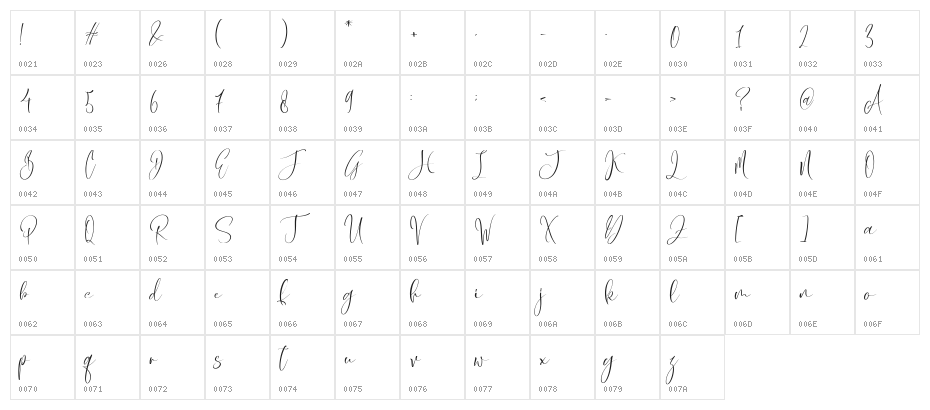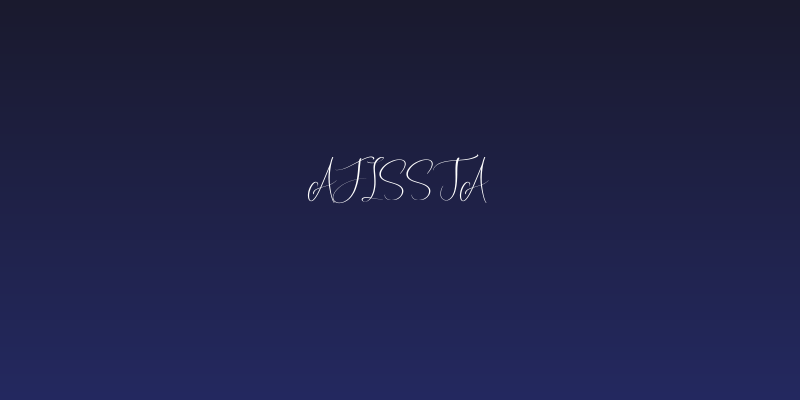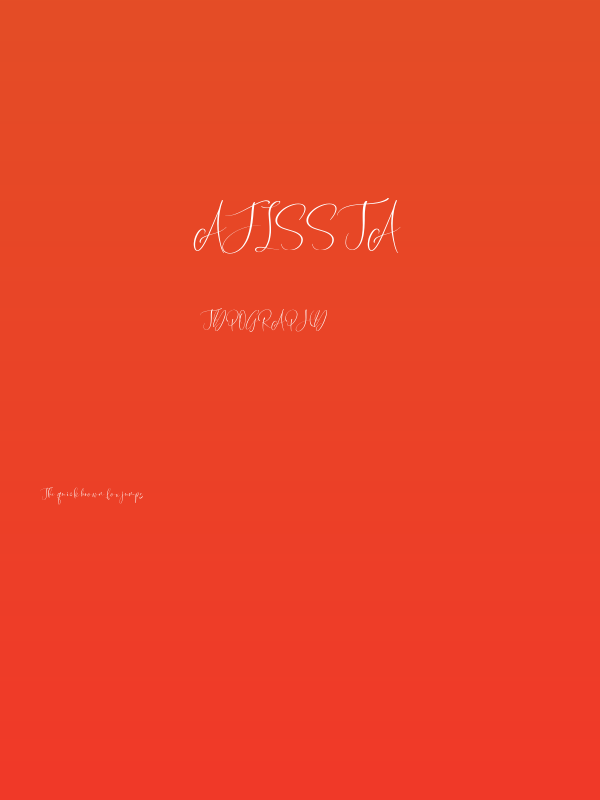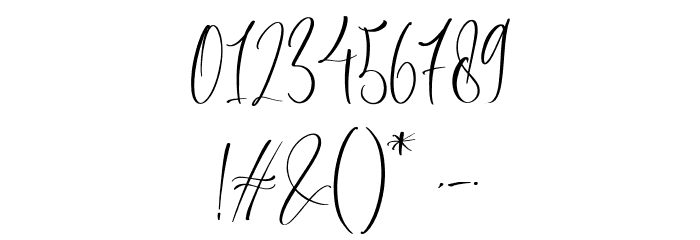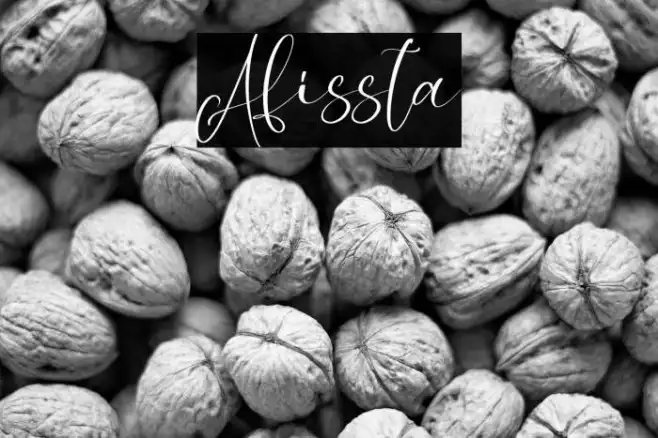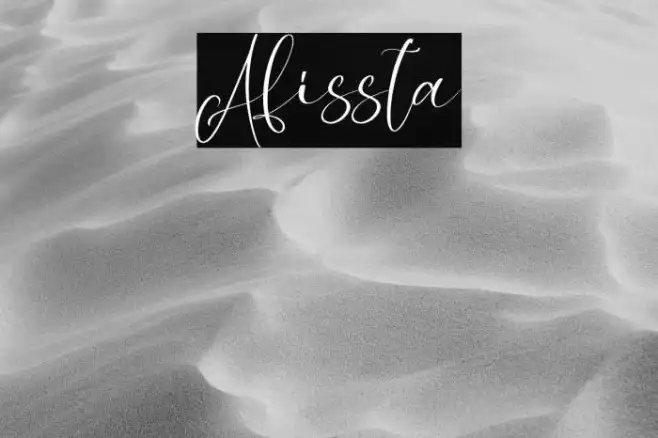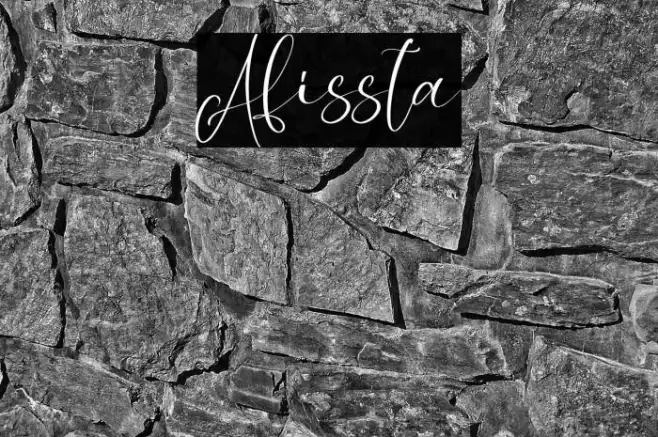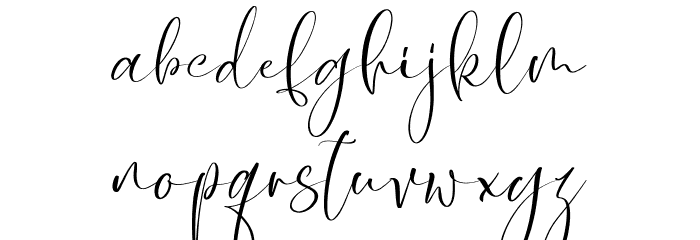
Afissta Font
Afissta Description
This elegant script font features flowing, interconnected letters with a graceful and sophisticated appearance. The uppercase characters are tall and slender, with sweeping curves and loops that add a touch of flair. The lowercase letters maintain a consistent style, with smooth transitions and delicate strokes. Numbers and special characters are designed to complement the overall aesthetic, maintaining the font's fluidity and charm. This font is perfect for projects that require a personal, handwritten touch, such as invitations, greeting cards, or branding materials.
| Use Case | Invitations, Greeting Cards, Branding |
| Proposed Projects | Ideal for wedding invitations, greeting cards, branding, and elegant stationery. |